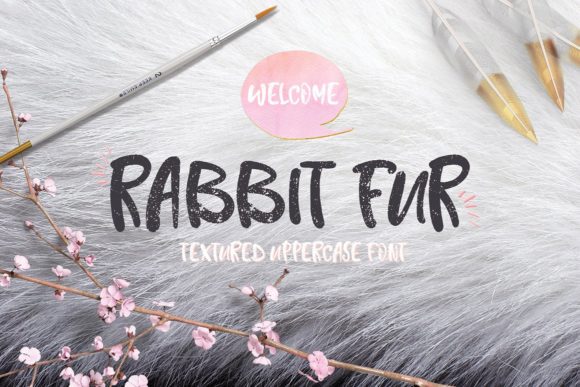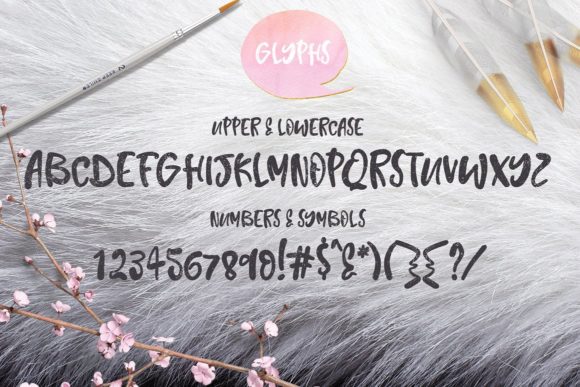
Rabbit Fur Font
About Rabbit Fur Font
The Rabbit Fur is a trendy, textured, rounded uppercase font. It has unique letters with a striking style and is perfect for making any design stand out!